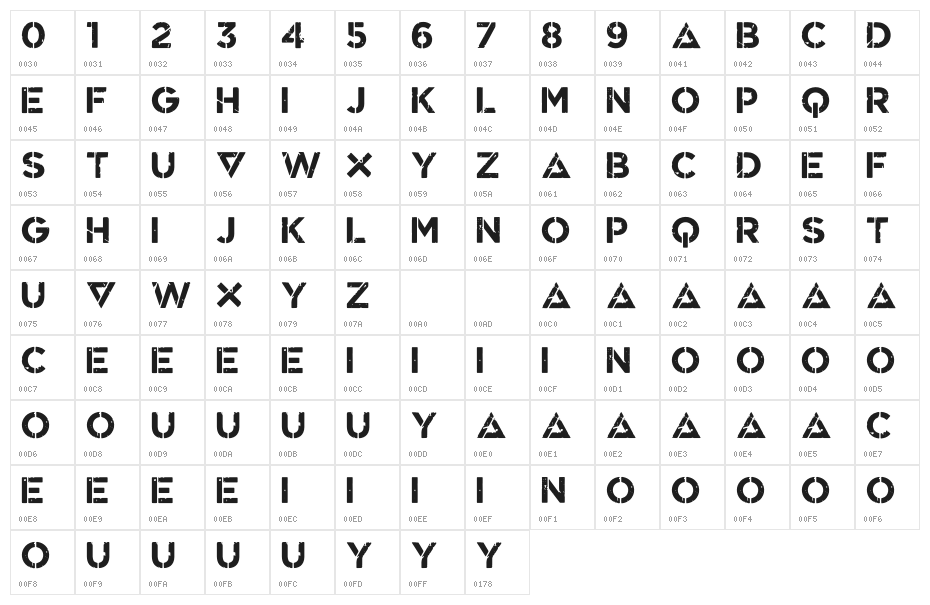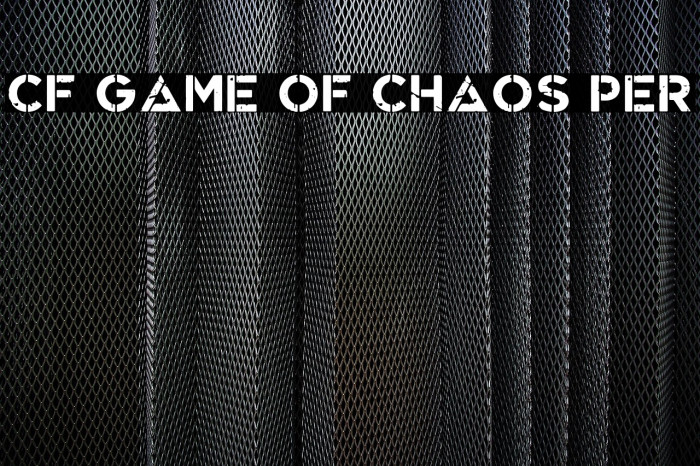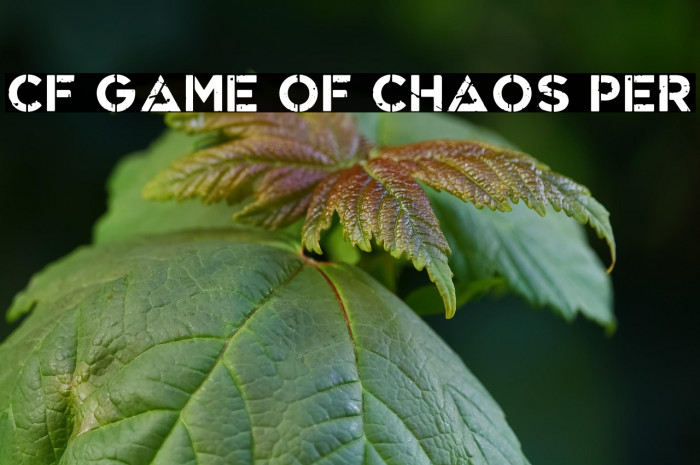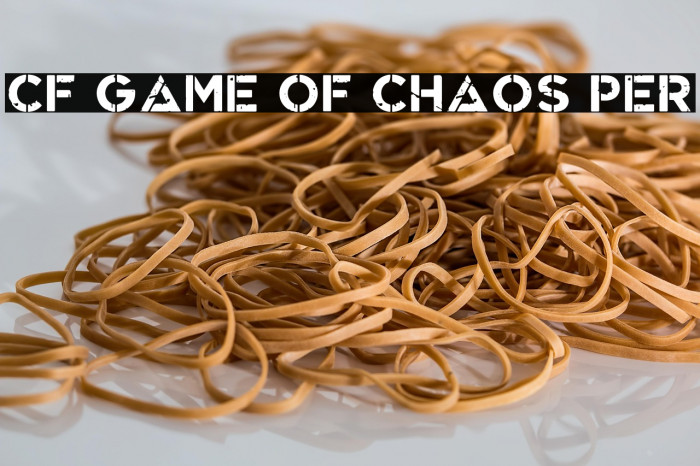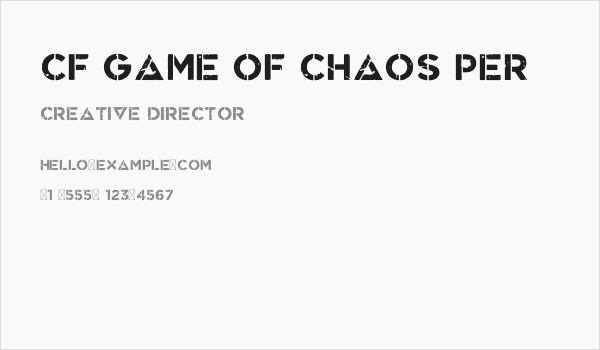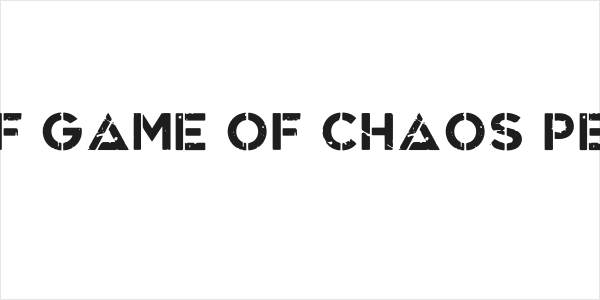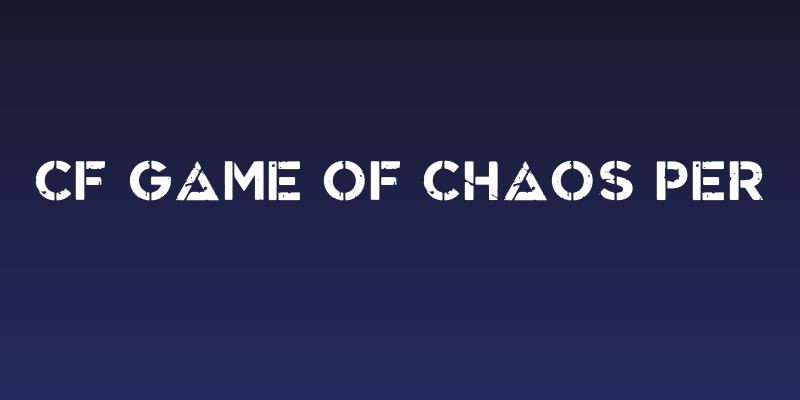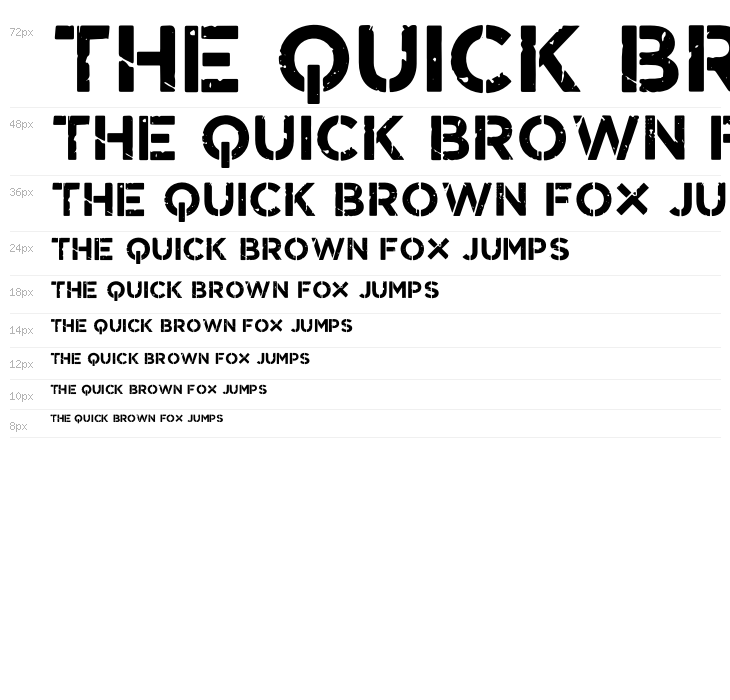
CF Game Of Chaos PER Font
CF Game Of Chaos PER Description
This font features a bold, distressed style with a rugged, worn appearance. Each character is designed with a rough texture, giving it a chaotic and edgy look. The uppercase letters are angular and strong, while the numbers maintain the same distressed aesthetic. The font's unique style makes it stand out, perfect for projects that require a gritty, rebellious feel. The characters are evenly spaced, ensuring readability despite their textured design.